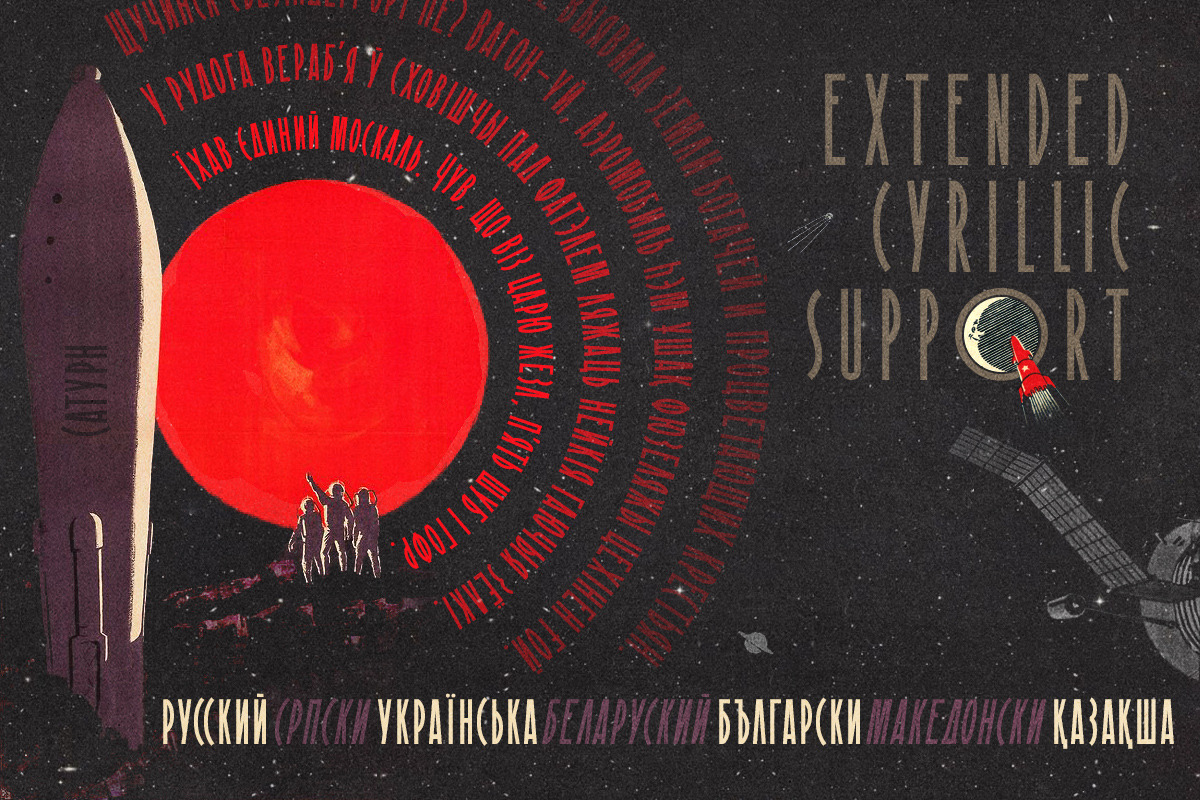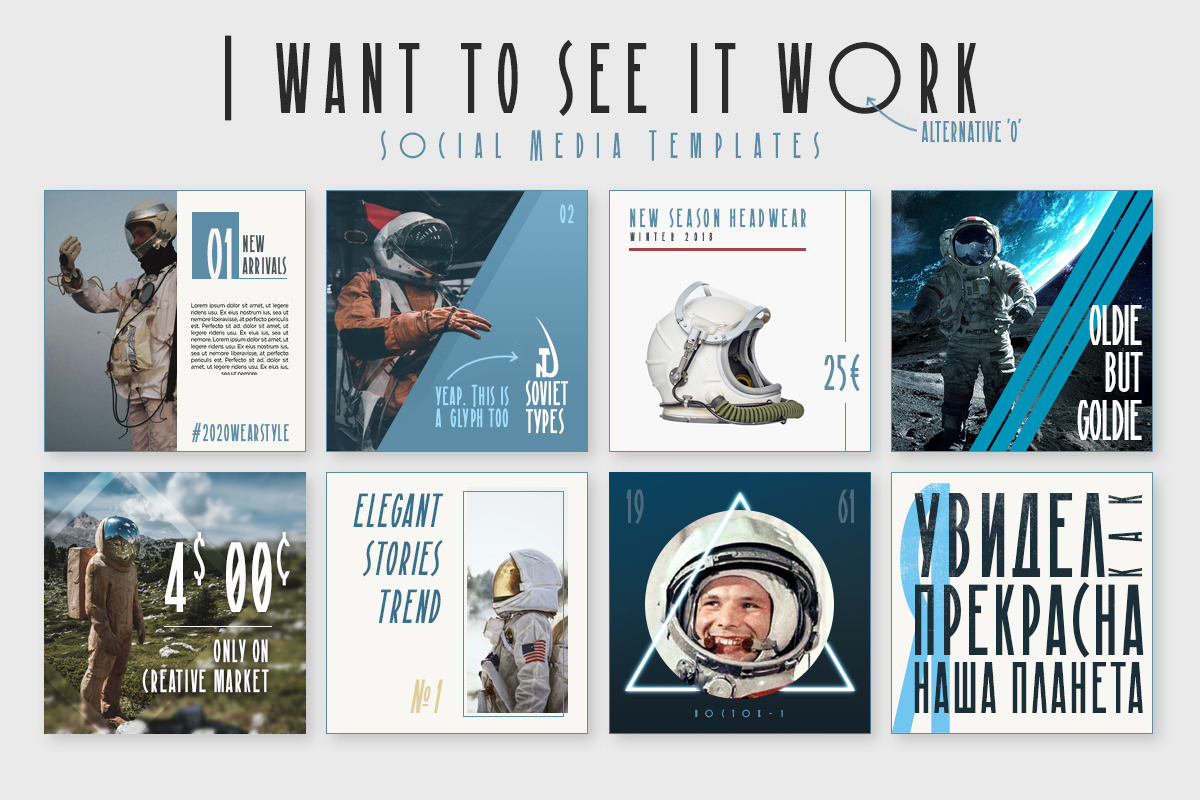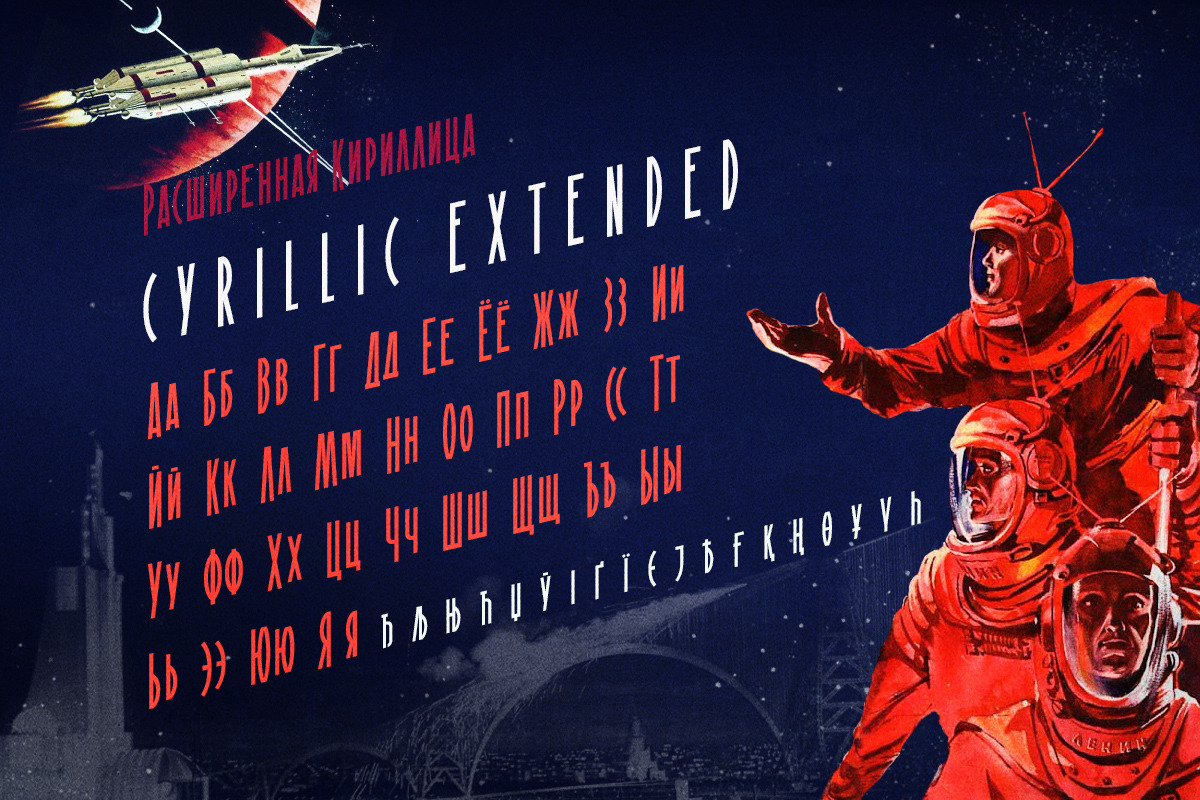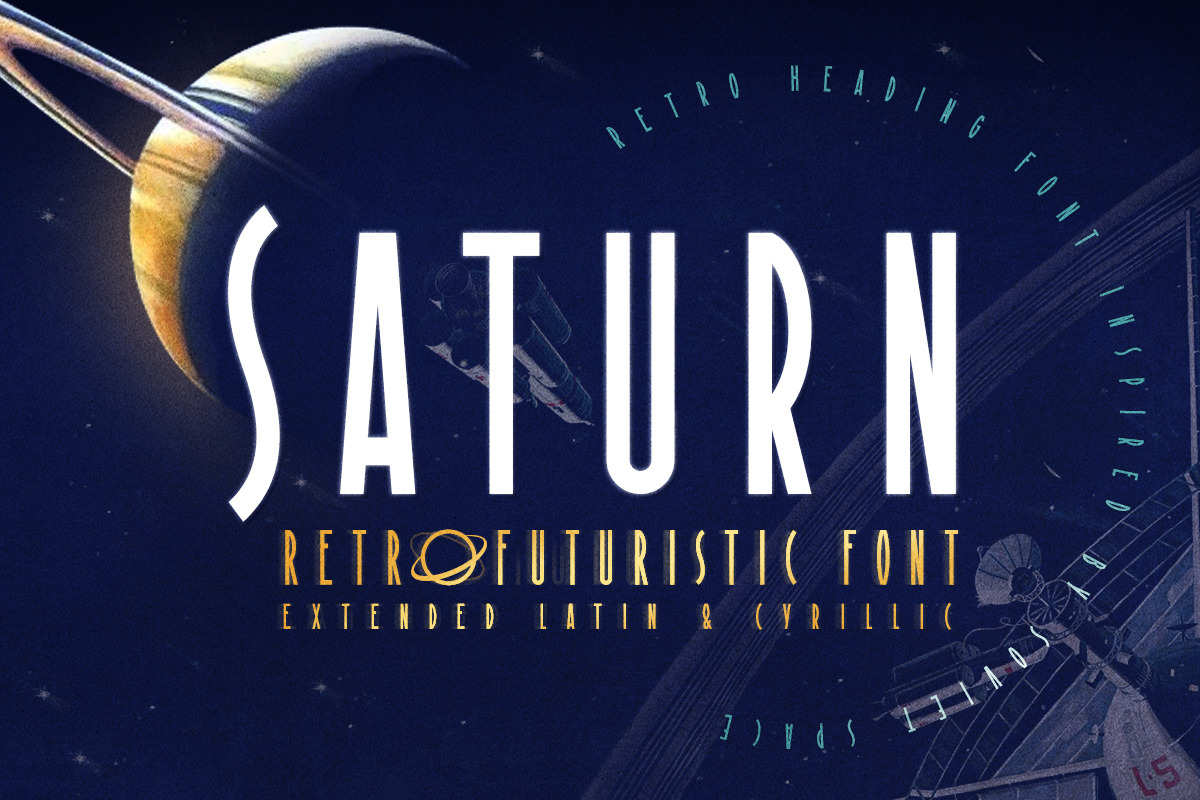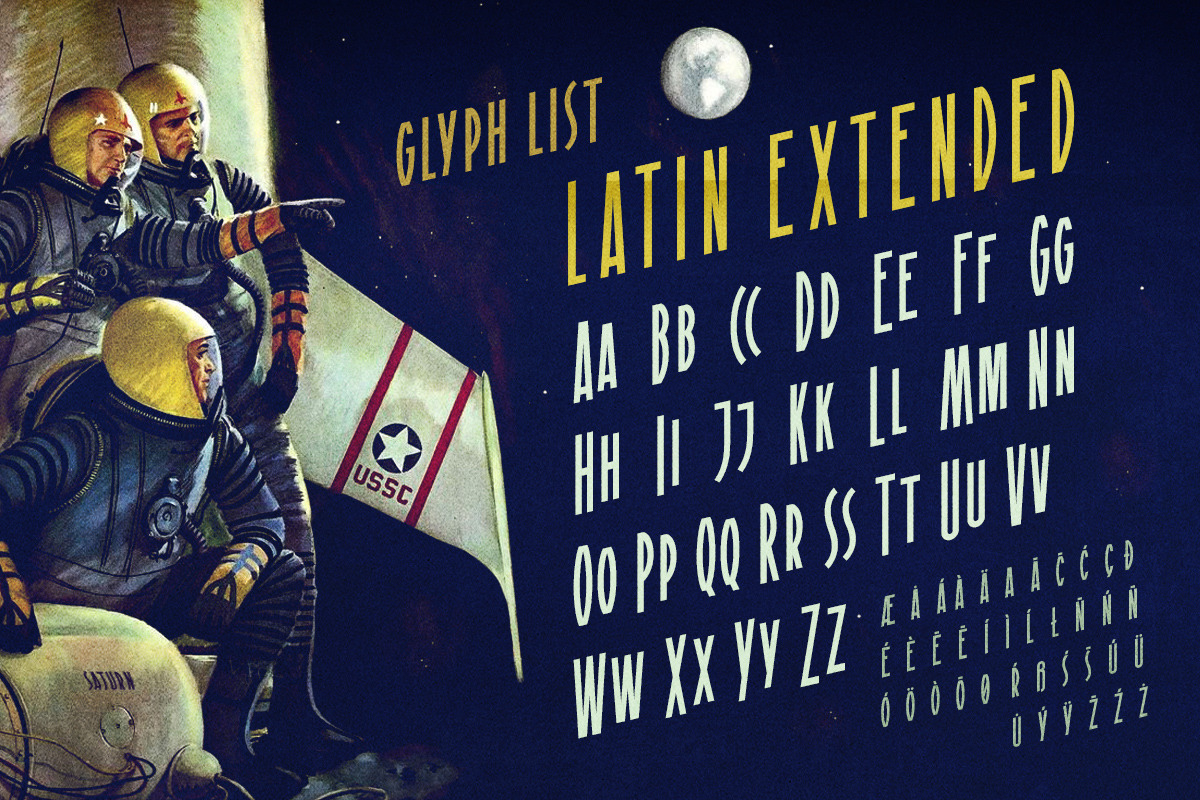
Saturn - retro futuristic font
SATURN is a retro futuristic modern editorial font with vintage vibes, inspirated by Soviet sci-fi book's headers and posters. It has a spirit of Space race, brave hearts and cosmic dreams. It's good for social media, headlines, large-format print, branding, posters, fashion designs and websites.
Language Support:
Latin: English, French, German, Dutch, Italian, Spanish, Danish, Norwegian, Portuguese, Croatian, Swedish, Hungarian, Estonian.
Cyrillic: Russian, Belorussian, Ukrainian, Serbian, Kazakh, Bulgarian, Macedonian.
Numerals, symbols, punctuation included.